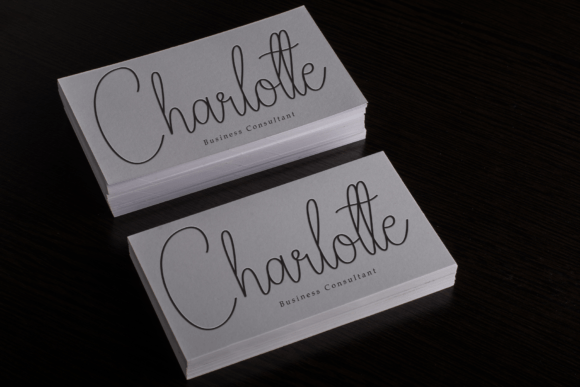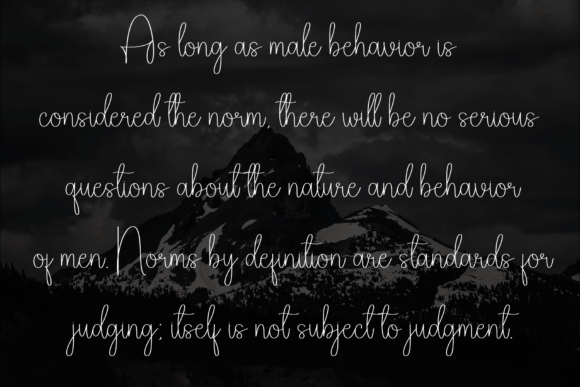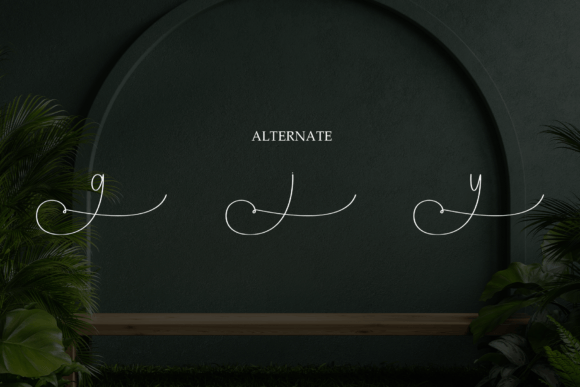
The Sweet Spot: Discovering Blackyard Font
I still remember the design project that led me to fall in love with Blackyard Font. I was working on a wedding invitation for a dear friend, and I was struggling to find the perfect font that would capture the sweet and playful tone of the occasion. That’s when I stumbled upon Blackyard, and it instantly became the perfect fit. With its sweet and friendly handwritten display style, it added a fun touch to the invitation that perfectly matched my friend’s personality.
- ✨ Cute and Fun: Blackyard Font is perfect for adding a playful touch to any design project.
- ✅ Versatile: It can be used for a wide range of projects, from wedding invitations and cards to posters and social media graphics.
- 💕 Easy to Read: Despite its playful style, Blackyard Font is surprisingly easy to read, making it perfect for longer texts.
While Blackyard Font is an amazing addition to any design project, there are a few things to keep in mind:
- 🤔 Limited Formality: Blackyard Font is a highly informal font, which means it might not be the best fit for more formal projects.
- ⚠️ Glyph Limitations: While Blackyard Font has a range of glyphs and stylistic alternates, it might not have everything you need for more complex designs.
The Story Behind Blackyard Font
Blackyard Font was designed with love and care by a talented type designer who wanted to create a font that would bring a smile to people’s faces. With its sweet and friendly style, Blackyard Font is perfect for adding a fun touch to any design project. Whether you’re a designer, crafter, or creative hobbyist, Blackyard Font is sure to become a favorite in your collection.
Q: What is Blackyard Font best used for?
A: Blackyard Font is perfect for adding a fun and playful touch to design projects like wedding invitations, cards, posters, and social media graphics.
Q: Is Blackyard Font easy to read?
A: Yes, despite its playful style, Blackyard Font is surprisingly easy to read, making it perfect for longer texts.